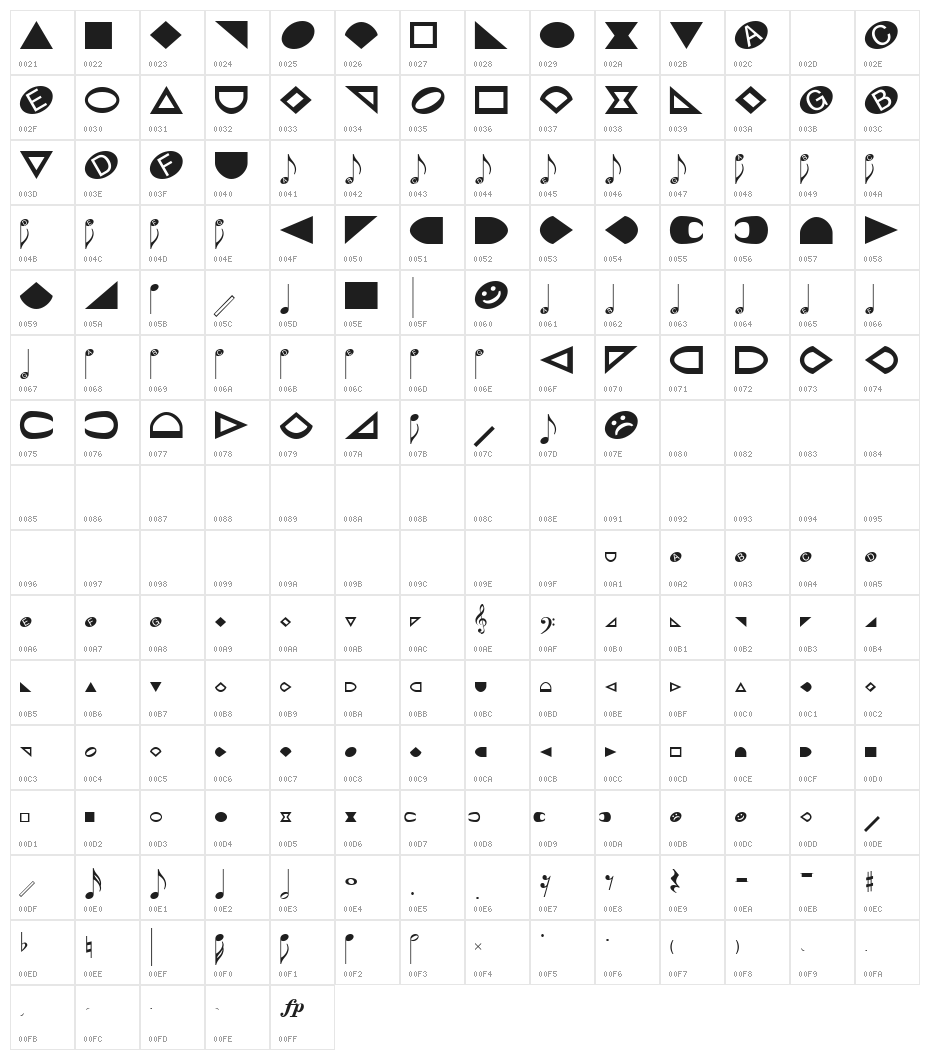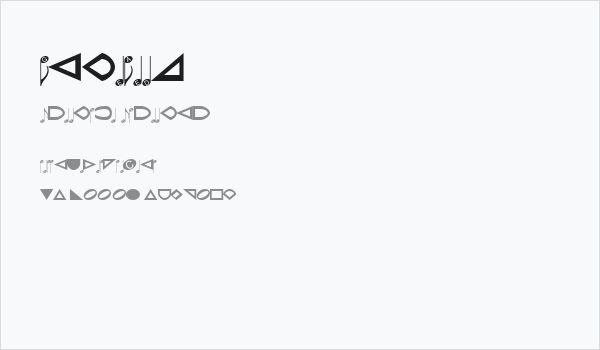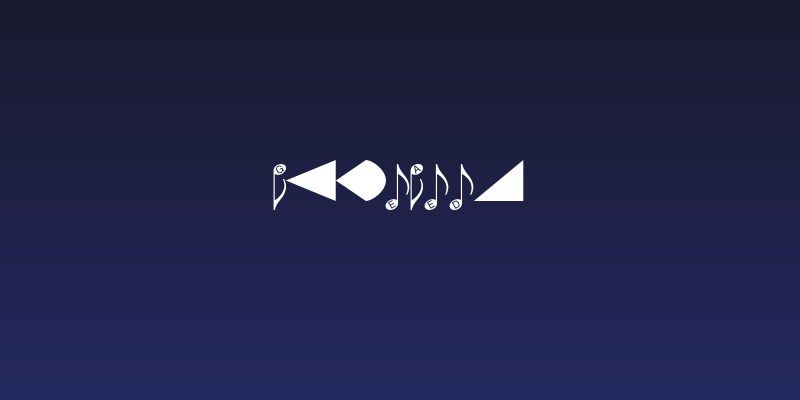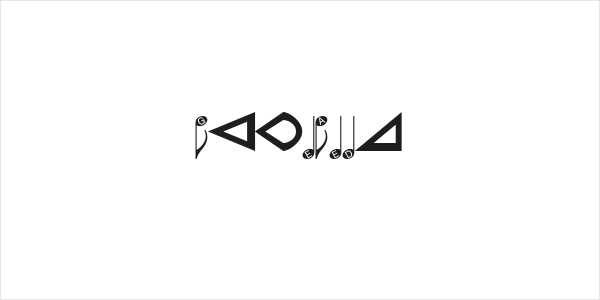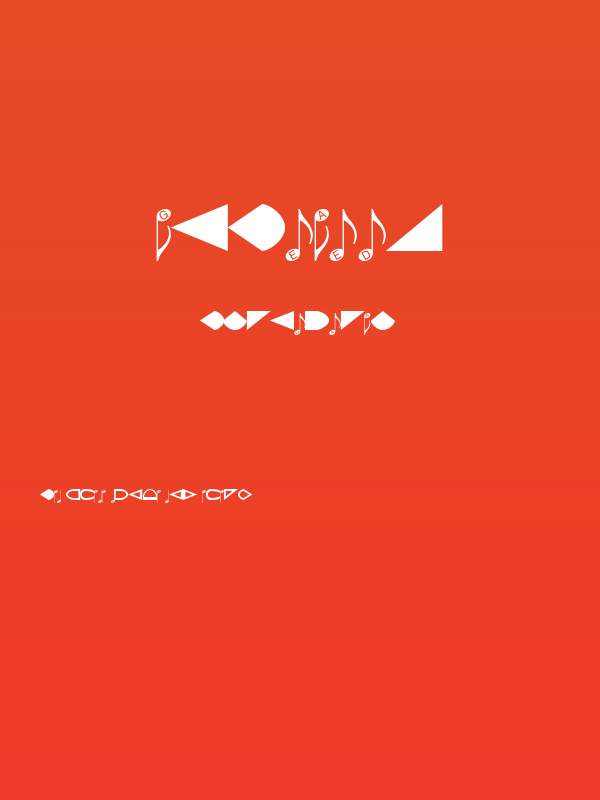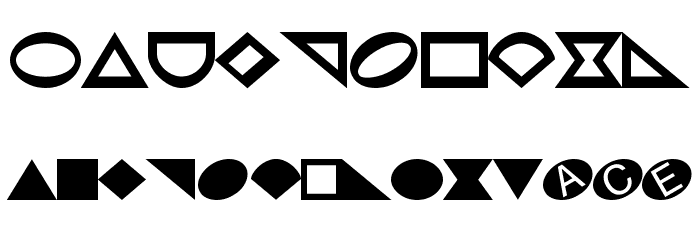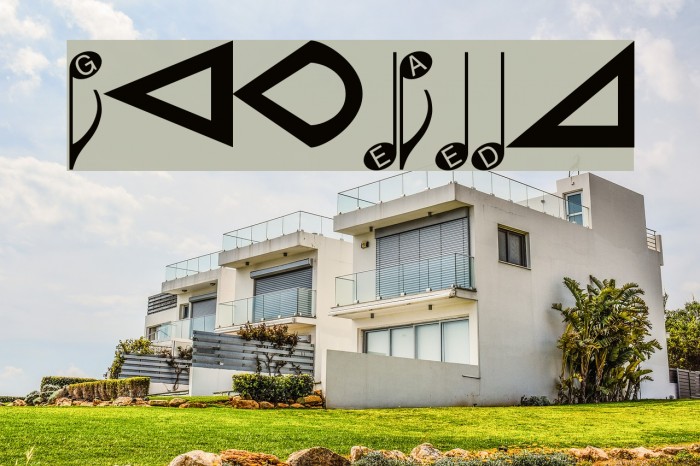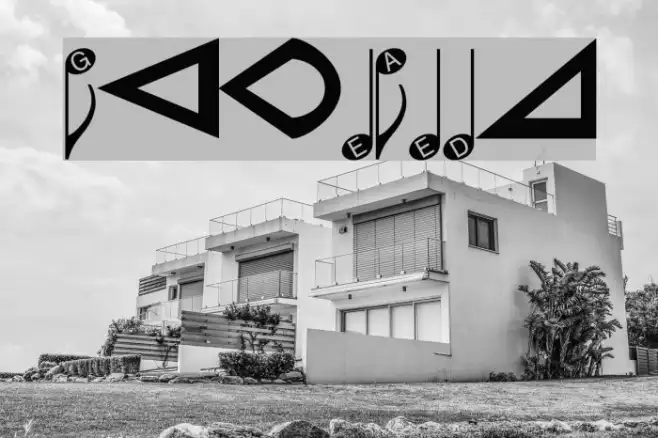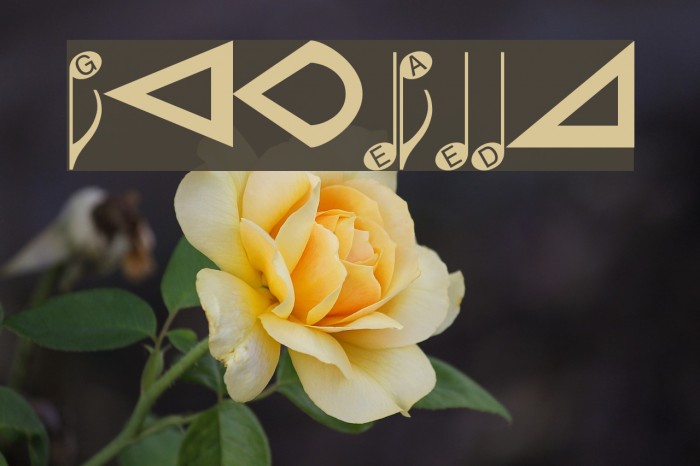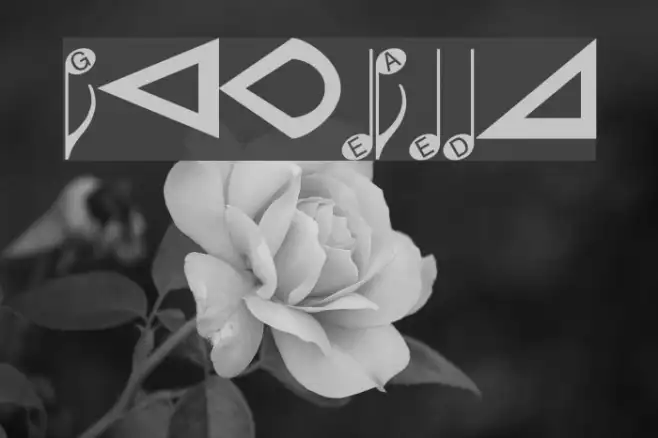
NoteHedz Font
NoteHedz Description
This font is a creative and playful design that integrates musical notes with geometric shapes to form letters. Each character is uniquely crafted, combining elements of music notation with bold, abstract forms. The uppercase letters are represented by musical notes, while the lowercase and numbers are depicted using a variety of geometric shapes, such as circles, triangles, and squares. The special characters are also creatively designed, maintaining the overall theme of musical and geometric fusion. This font is highly decorative and unconventional, making it ideal for projects that require a distinctive and artistic touch.
| Use Case | Logos, Posters, Artistic Projects |
| Proposed Projects | Ideal for music-related posters, album covers, artistic projects, and creative branding. |